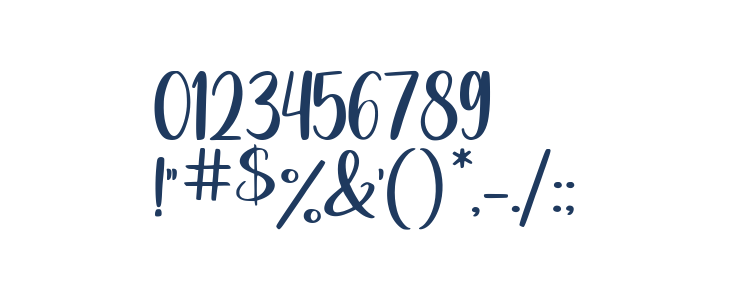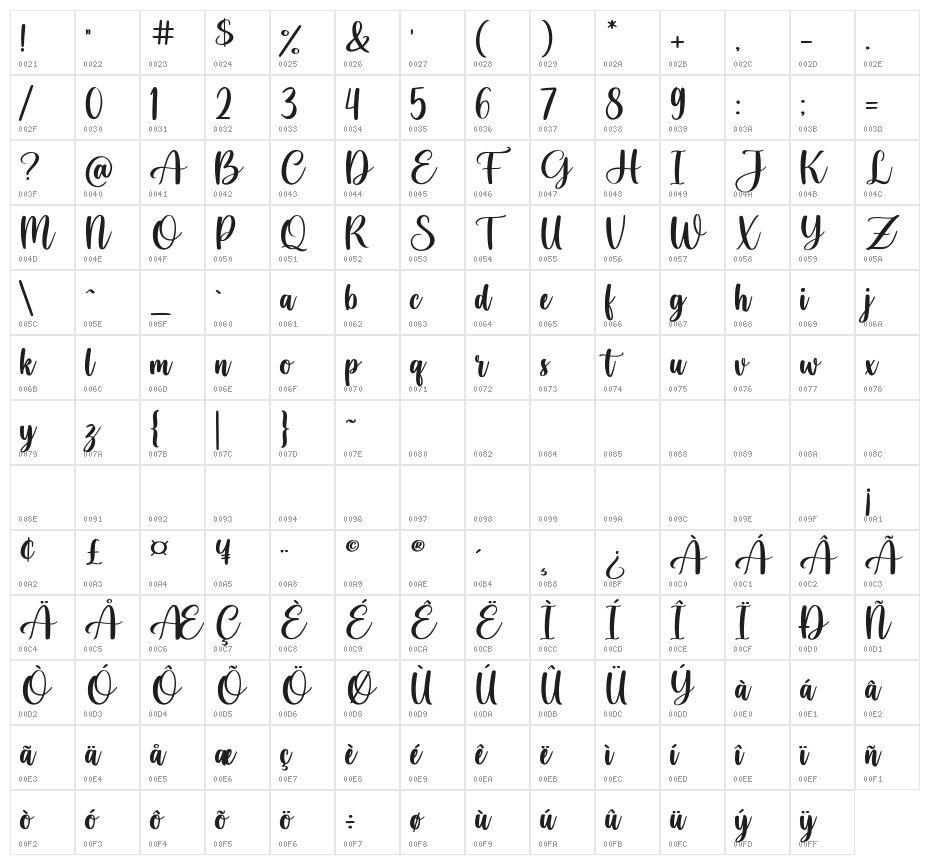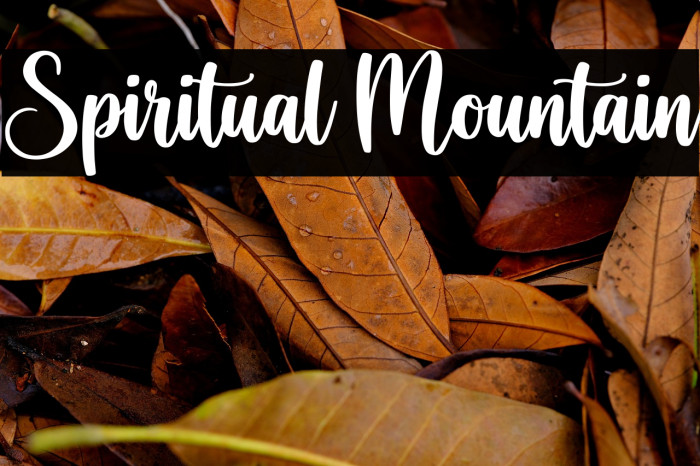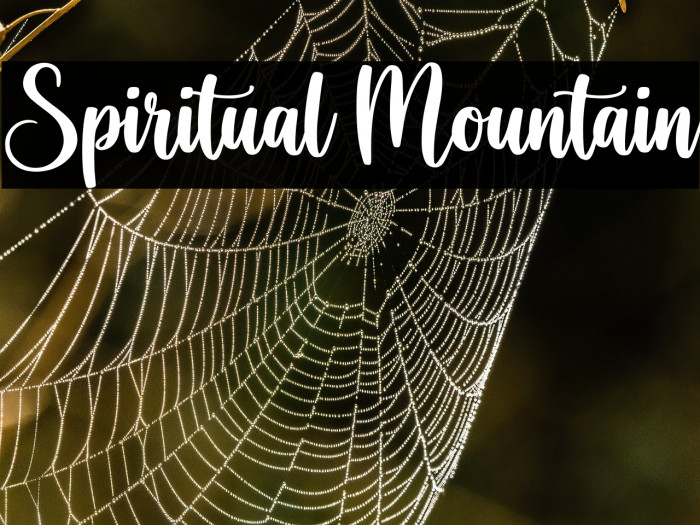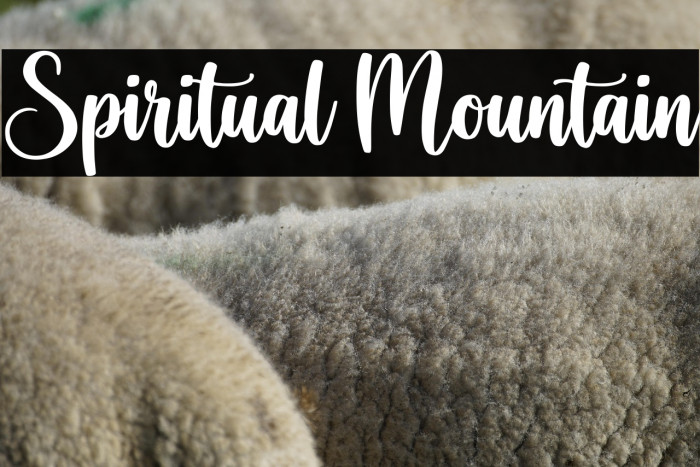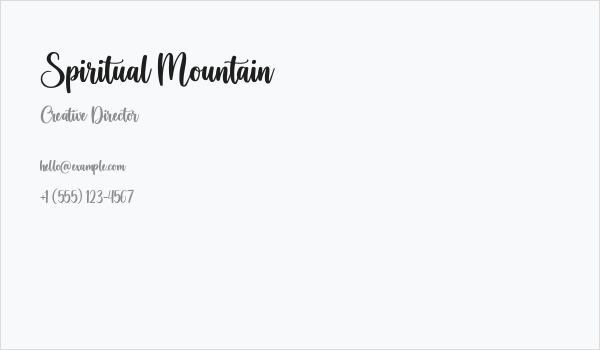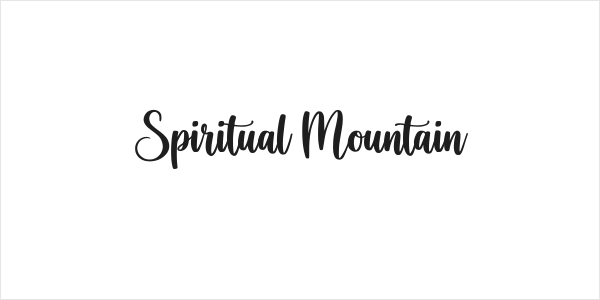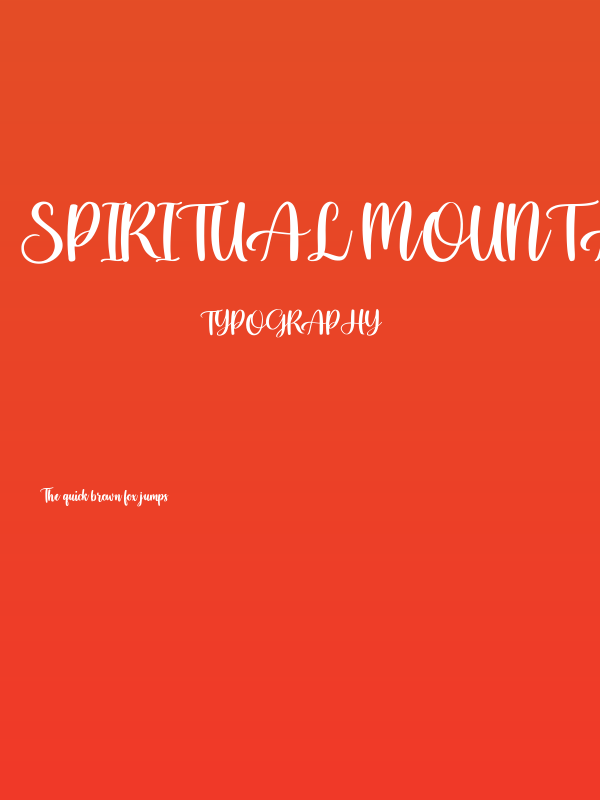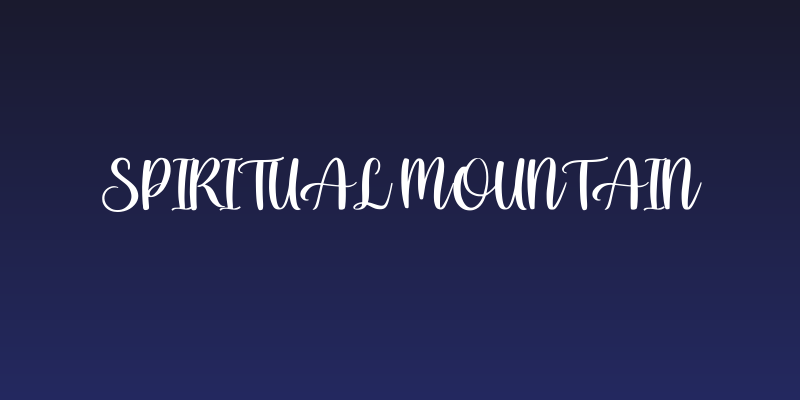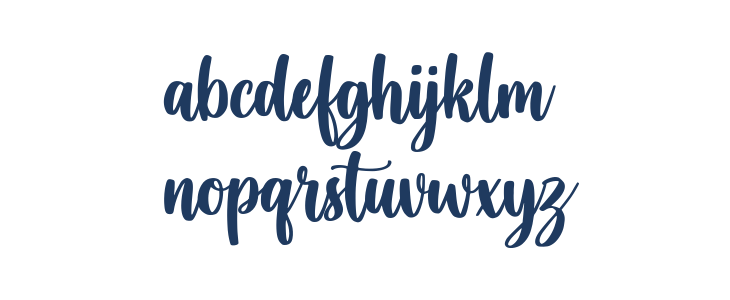
Spiritual Mountain Font
Spiritual Mountain Description
This font features a flowing, cursive style with elegant, sweeping curves and a handwritten appearance. The uppercase letters are bold and expressive, with distinctive loops and flourishes that add a touch of sophistication. The lowercase letters maintain a consistent flow, enhancing readability while retaining an artistic flair. Numbers and special characters are designed with the same attention to detail, ensuring a cohesive look across all elements. This font exudes a sense of creativity and elegance, making it ideal for projects that require a personal touch.